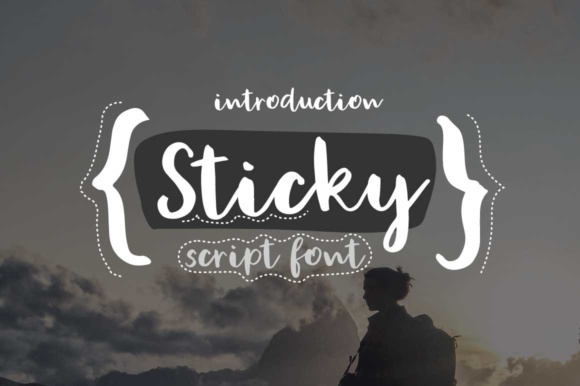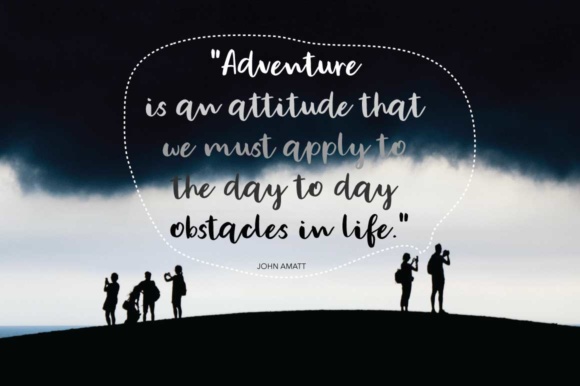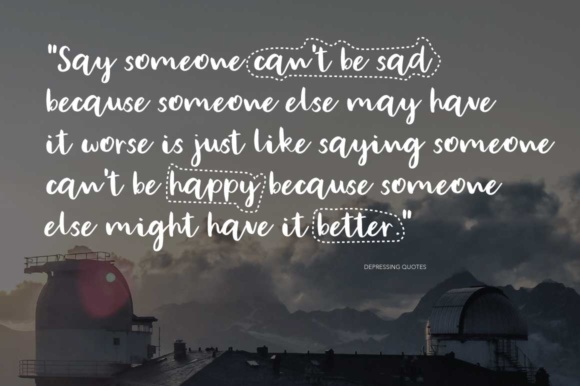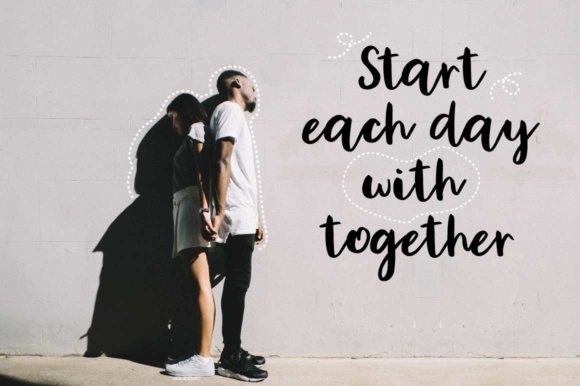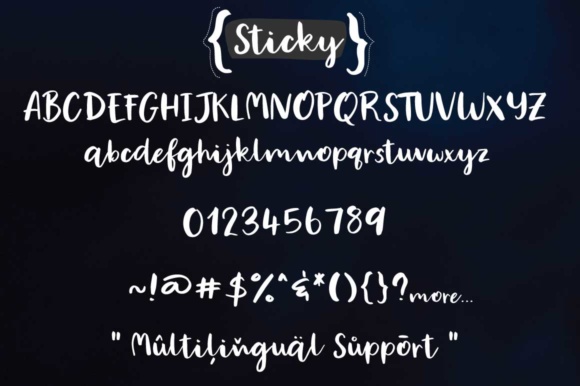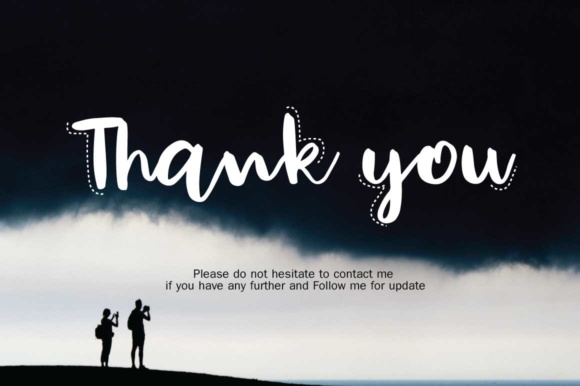
Sticky Font
About Sticky Font
The Sticky is a modern, handwritten script font. It has a clean style with a good readability. Perfect for various design projects!